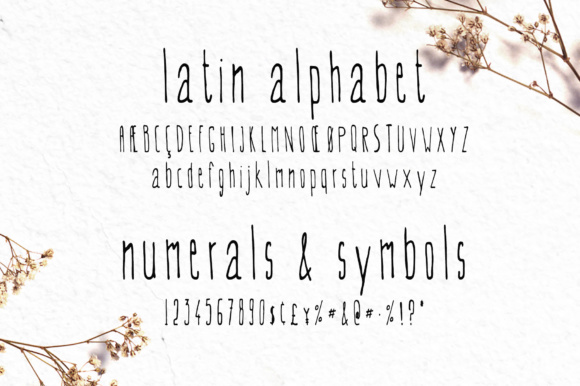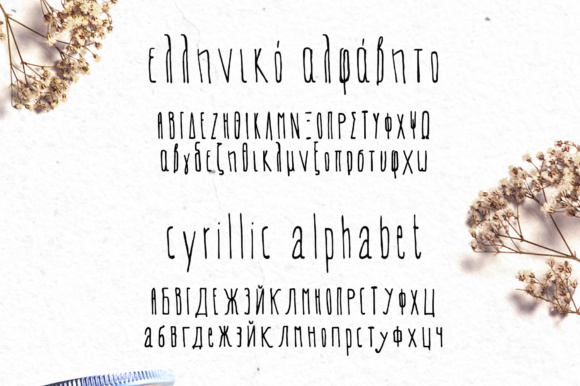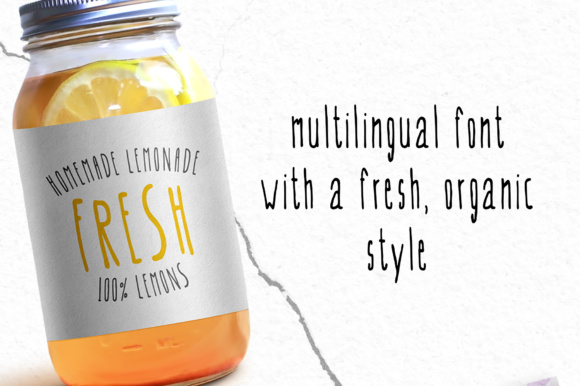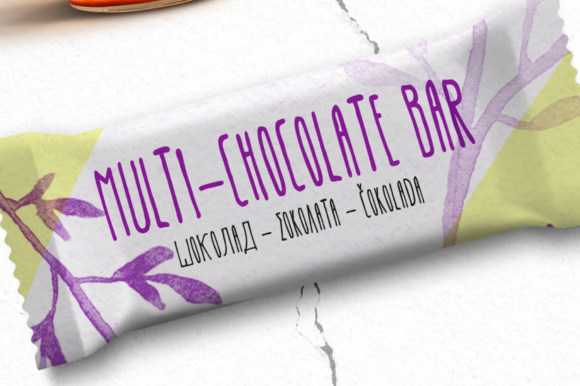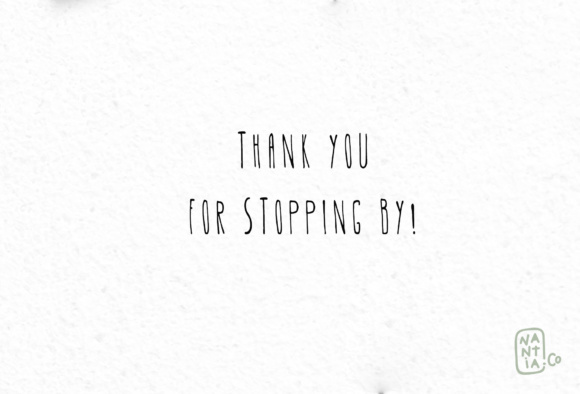
Evey Font: Elevate Your Design with Elegant Craftsmanship
In the world of typography, a font can make all the difference in creating a lasting impression. For designers and crafters seeking a unique and elegant style, Evey Font is an excellent choice. This crafty typeface boasts an sophisticated aesthetic that’s perfect for natural organic product packaging, branding, and even wedding invitations.
The Unique Style of Evey Font
Evey Font’s distinct style sets it apart from other typefaces. Its elegant and refined features make it an ideal choice for designers looking to add a touch of sophistication to their work. The font’s craftsmanship is evident in its intricate details, which give it a hand-crafted feel. This unique style makes Evey Font an excellent choice for natural organic product packaging and branding, as it evokes a sense of earthiness and wholesomeness.
Evey Font in Packaging and Branding
When it comes to packaging and branding, a font can play a crucial role in communicating a brand’s values and personality. Evey Font’s elegant style makes it an excellent choice for natural organic products, such as artisanal foods, skincare products, and handmade crafts. The font’s unique features and intricate details give products a personal touch, making them stand out on store shelves. By using Evey Font, designers can create packaging and branding that not only looks great but also tells a story.
Evey Font as a Wedding Typography
Wedding planning is an exciting time for couples, and choosing the right font for their wedding stationery is a crucial decision. Evey Font’s elegant and refined features make it an excellent choice for wedding typography. Its unique style adds a touch of whimsy and romance to wedding invitations, making them truly special. When paired with handcrafted or recycled papers, Evey Font creates a stunning combination that’s sure to impress. Whether you’re a designer or a couple planning your special day, Evey Font is a great choice for creating beautiful wedding stationery.
Pairing Evey Font with Handcrafted/Recycled Papers
One of the most significant advantages of Evey Font is its versatility. When paired with handcrafted or recycled papers, the font takes on a new level of elegance and sophistication. The combination of Evey Font’s unique style and the tactile nature of handcrafted papers creates a truly unique and eye-catching wedding invitation. Designers and crafters can experiment with different paper textures and colors to create a one-of-a-kind look that’s both eco-friendly and stylish.
Why Choose Evey Font?
So, why choose Evey Font for your design project? Here are a few reasons:
- Unique Style: Evey Font’s elegant and refined features make it stand out from other typefaces.
- Elegant Craftsmanship: The font’s intricate details give it a hand-crafted feel that’s perfect for natural organic product packaging and branding.
- Versatility: Evey Font can be used for a variety of design projects, from packaging and branding to wedding stationery.
- Easy to Pair: The font pairs well with handcrafted or recycled papers, making it easy to create a unique and eye-catching design.
Evey Font is a versatile and elegant typeface that’s perfect for designers and crafters seeking a unique style. Its elegant craftsmanship and refined features make it an excellent choice for natural organic product packaging, branding, and wedding stationery. When paired with handcrafted or recycled papers, Evey Font creates a stunning combination that’s sure to impress. Whether you’re a designer or a crafter, Evey Font is a great choice for elevating your design and adding a touch of sophistication to your work.